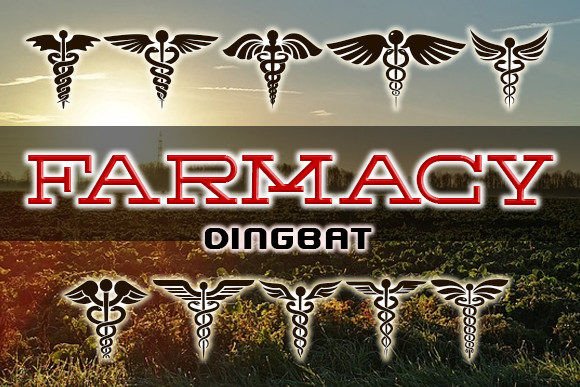
**Farmacy Font: The Ultimate Dingbat Font for War Time Posters**
In the midst of turmoil and chaos, Farmacy emerges as a beacon of creativity, a font that captures the essence of wartime resilience and determination. Inspired by the iconic propaganda posters of yesteryears, Farmacy is not just a font; it's a time capsule that transports you to an era of unity and unwavering spirit.
With each stroke and curve, Farmacy tells a tale of courage, sacrifice, and unwavering hope. Its bold and distinctive characters evoke a sense of urgency, a call to action that resonates with the very core of human spirit. Whether you're a designer, an artist, or simply someone who appreciates the power of typography, Farmacy is the font you've been searching for.
**Why Choose Farmacy Font?**
- **Make a Statement:** Farmacy is not for the faint of heart. Its bold and assertive style demands attention, making it the perfect choice for posters, flyers, and banners that are meant to leave a lasting impression.
- **Convey a Message:** More than just a font, Farmacy is a vehicle for communication. Its unique dingbat characters allow you to convey complex messages and emotions without uttering a single word.
- **Stand Out from the Crowd:** In a world saturated with generic fonts, Farmacy sets you apart. Its distinctive style is sure to turn heads and leave a lasting impression on your audience.
- **Pay Homage to History:** Farmacy is a tribute to the iconic wartime posters that played a vital role in shaping public opinion and galvanizing support. By using this font, you become a part of that legacy, carrying the torch of creativity and resilience into the future.
**The Perfect Font for War Time Posters**
Farmacy is more than just a font; it's an experience. A journey through time that evokes emotions, stirs the soul, and leaves a lasting impression. Download Farmacy today and unleash the power of typography in your wartime posters. Let your designs speak volumes, and inspire generations to come.